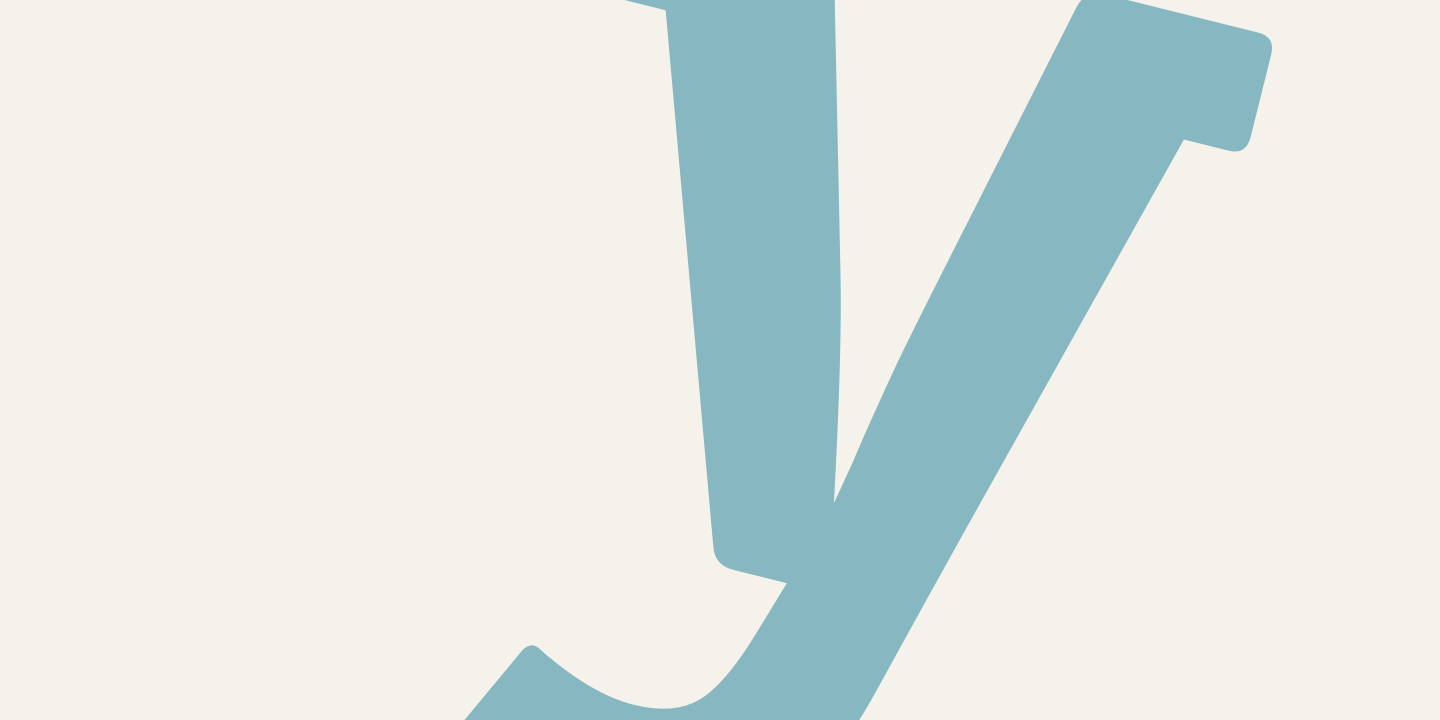
ITC Officina Serif Font Free Download is a robust, highly legible serif typeface designed for both print and digital applications. With its clear letterforms, strong serifs, and balanced proportions, ITC Officina Serif brings a professional and approachable tone to corporate branding, editorial design, advertising, and technical documentation.
Originally created to address the need for practical and readable fonts in office environments, this typeface combines functionality with a refined aesthetic. It is ideal for body text, headlines, and user interfaces that require clarity without sacrificing style.
ITC Officina Serif Font Free Download offers a comprehensive family with multiple weights and styles, providing flexibility for complex typographic hierarchies. Fully compatible with major design software like Adobe Creative Suite, Figma, Sketch, and Canva, it seamlessly integrates into your creative projects.